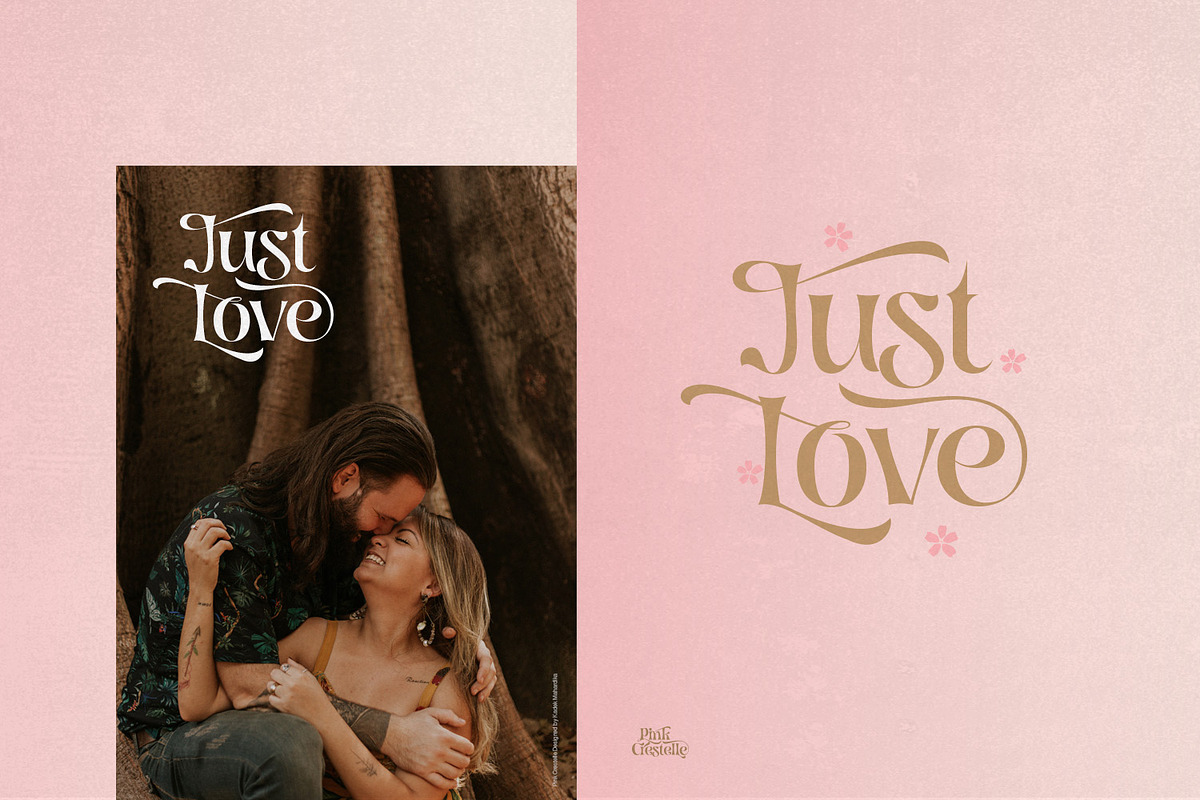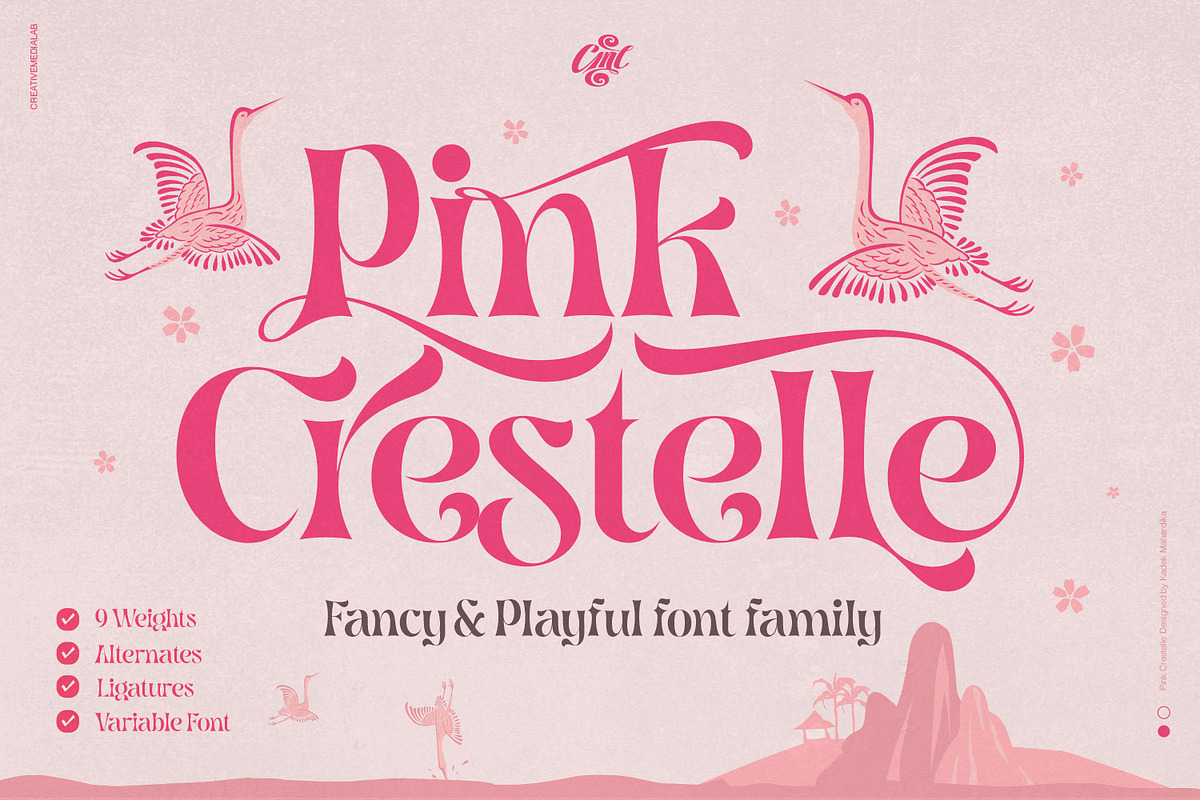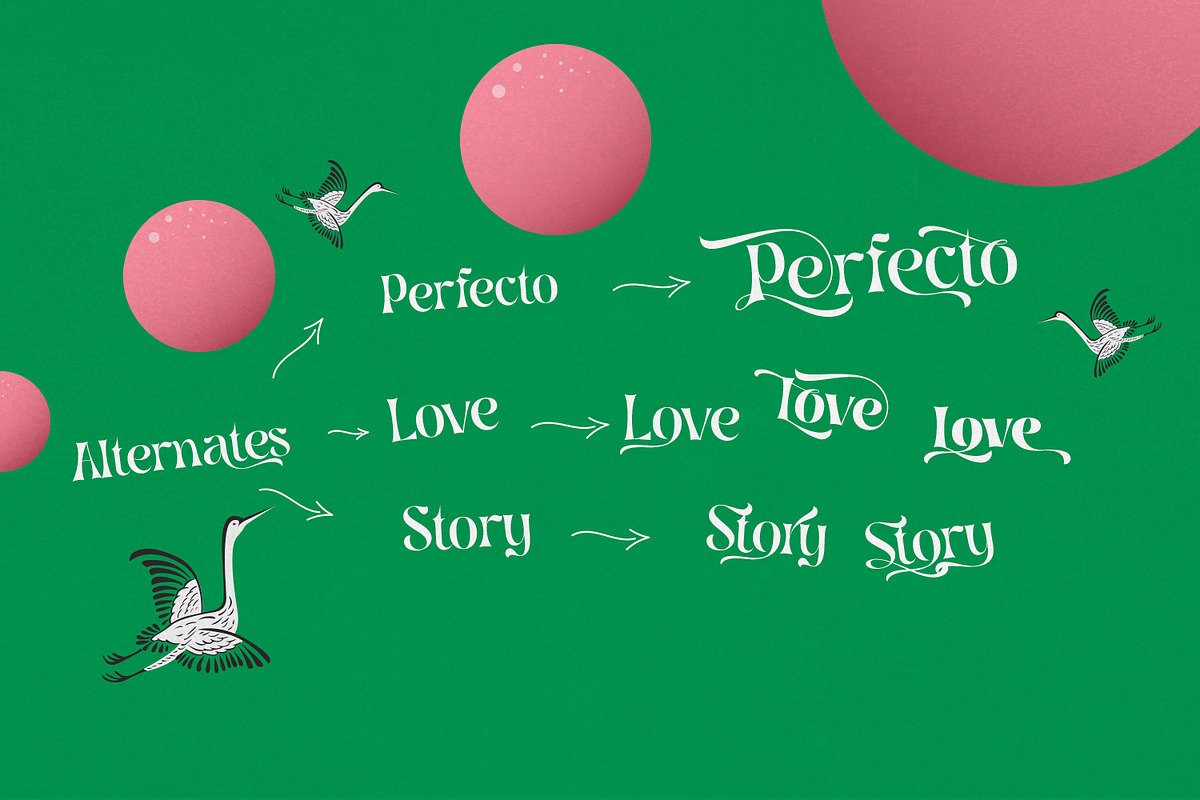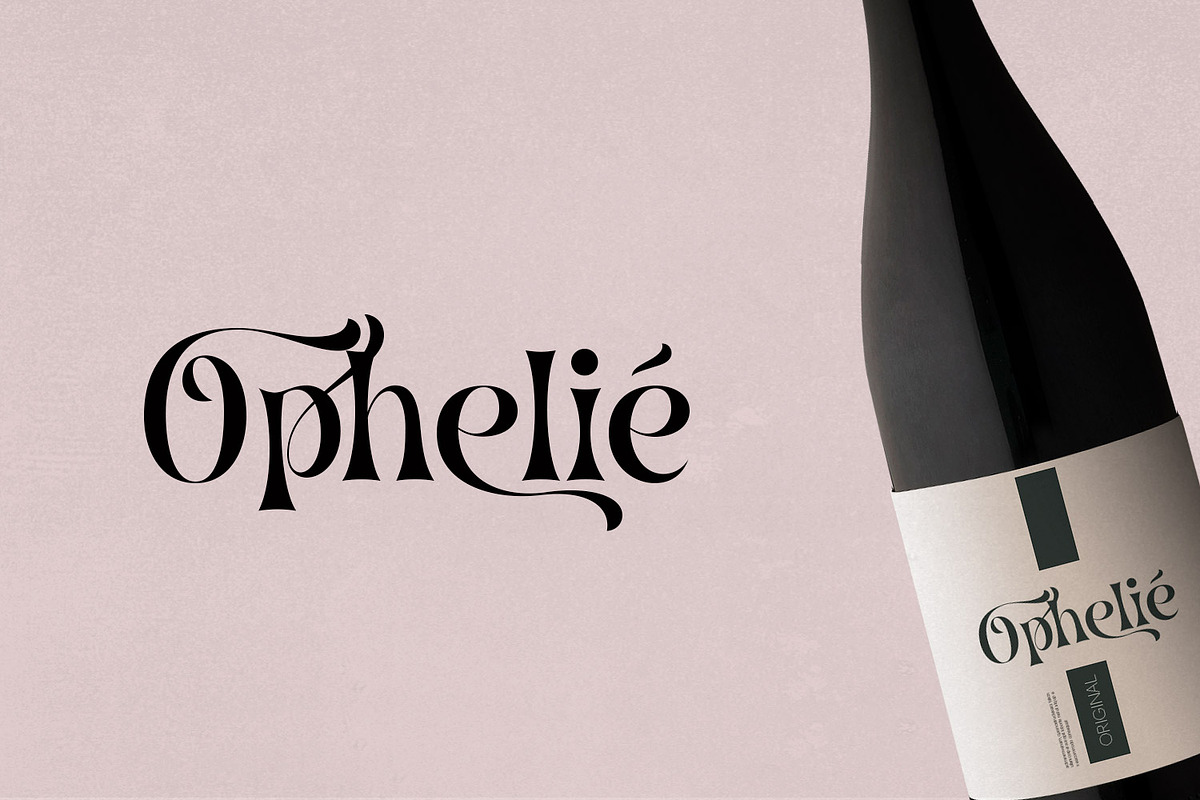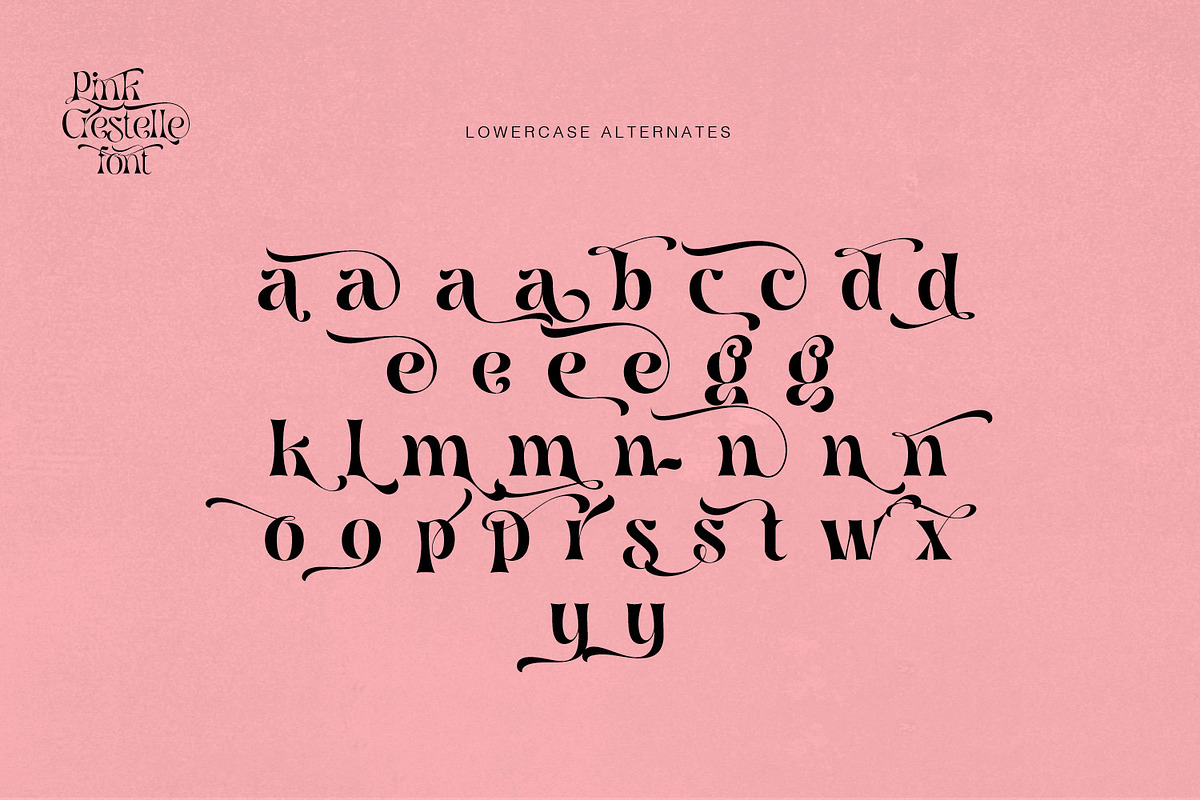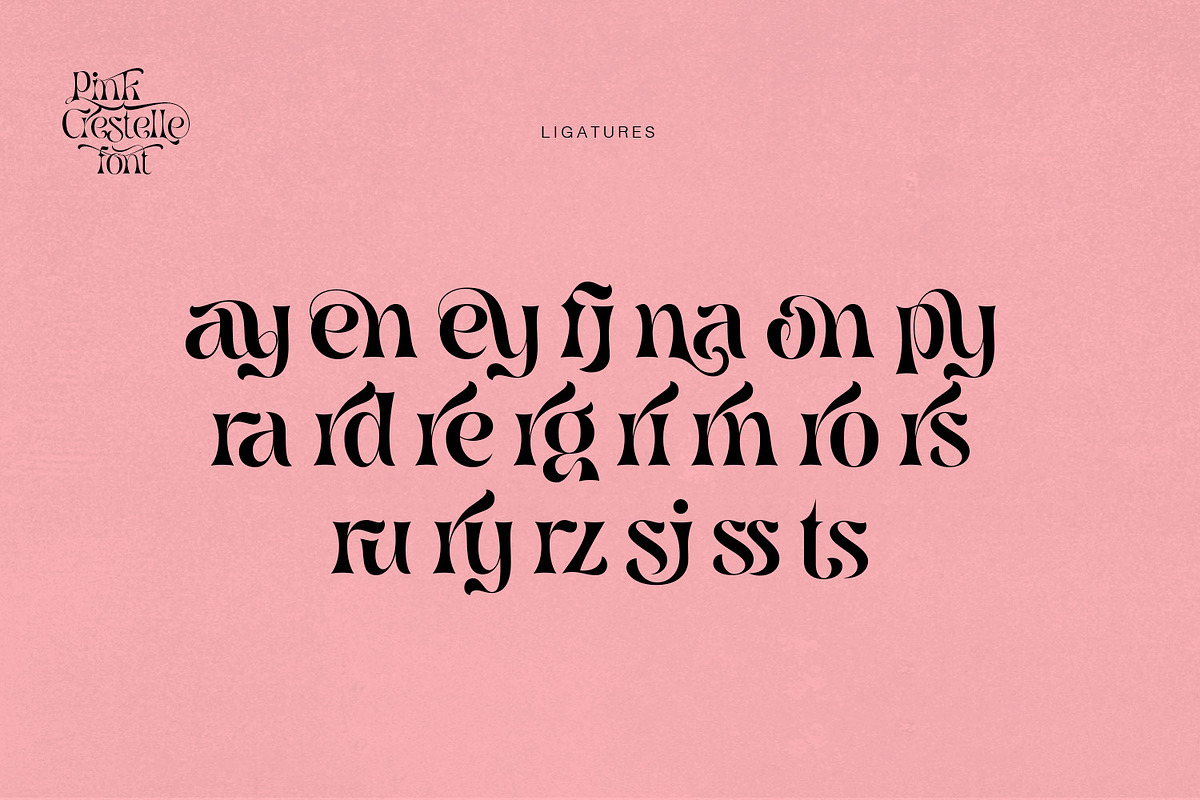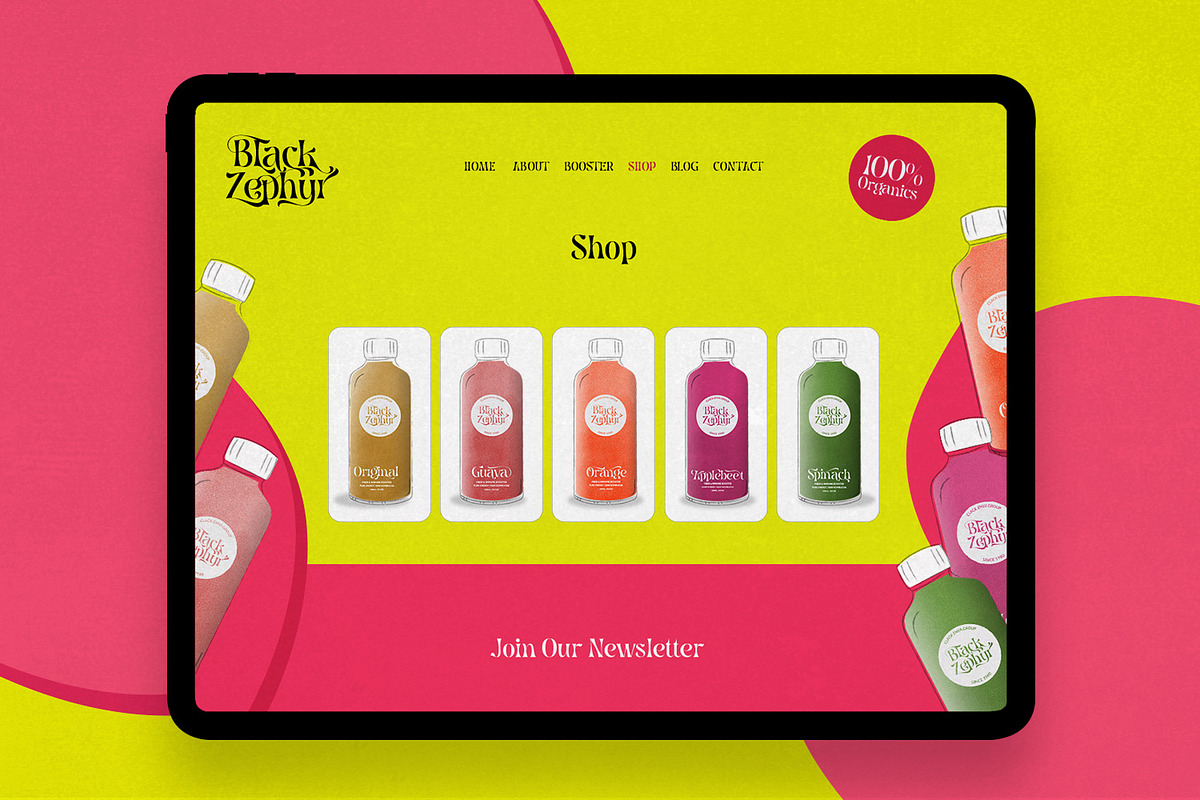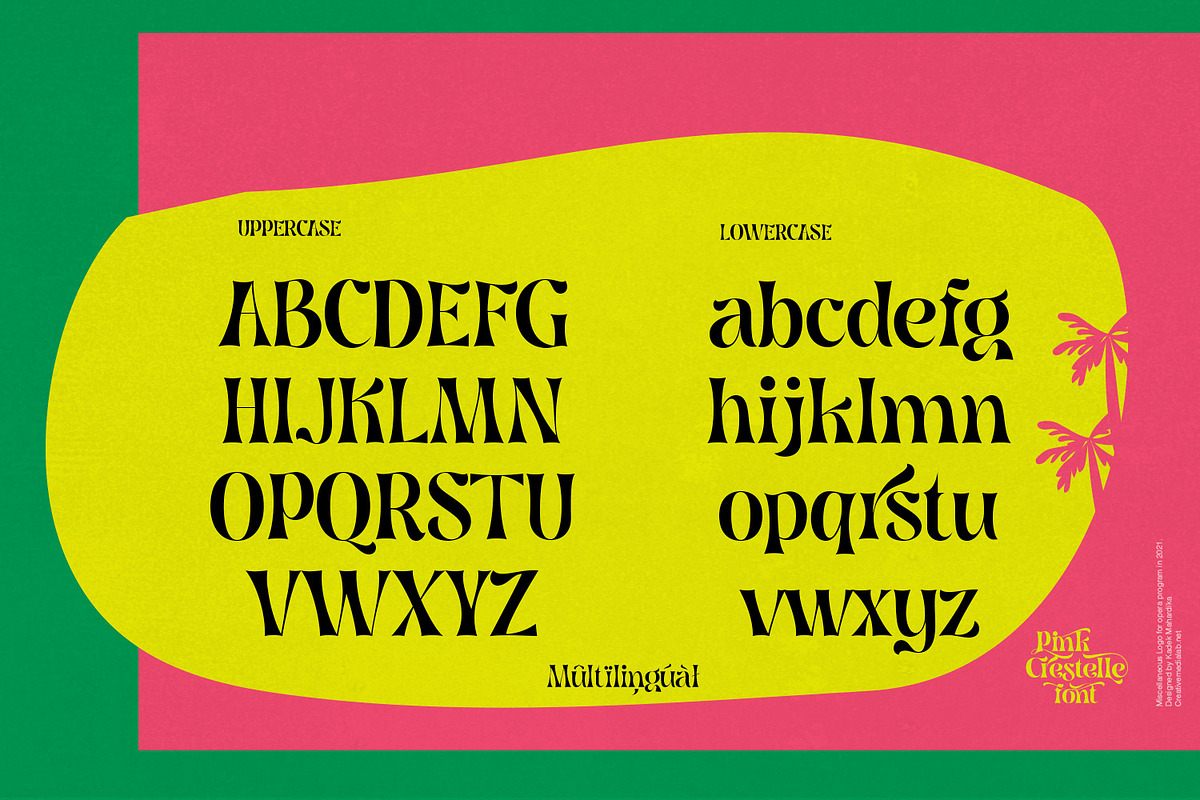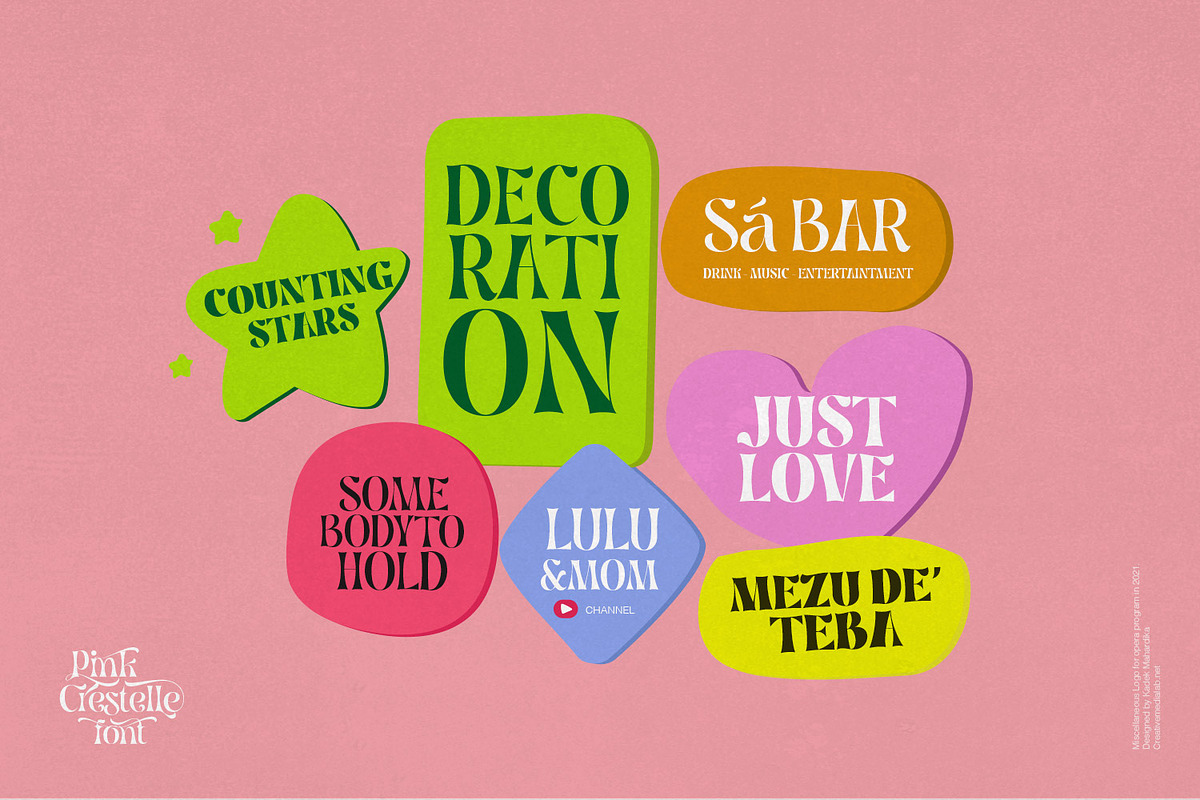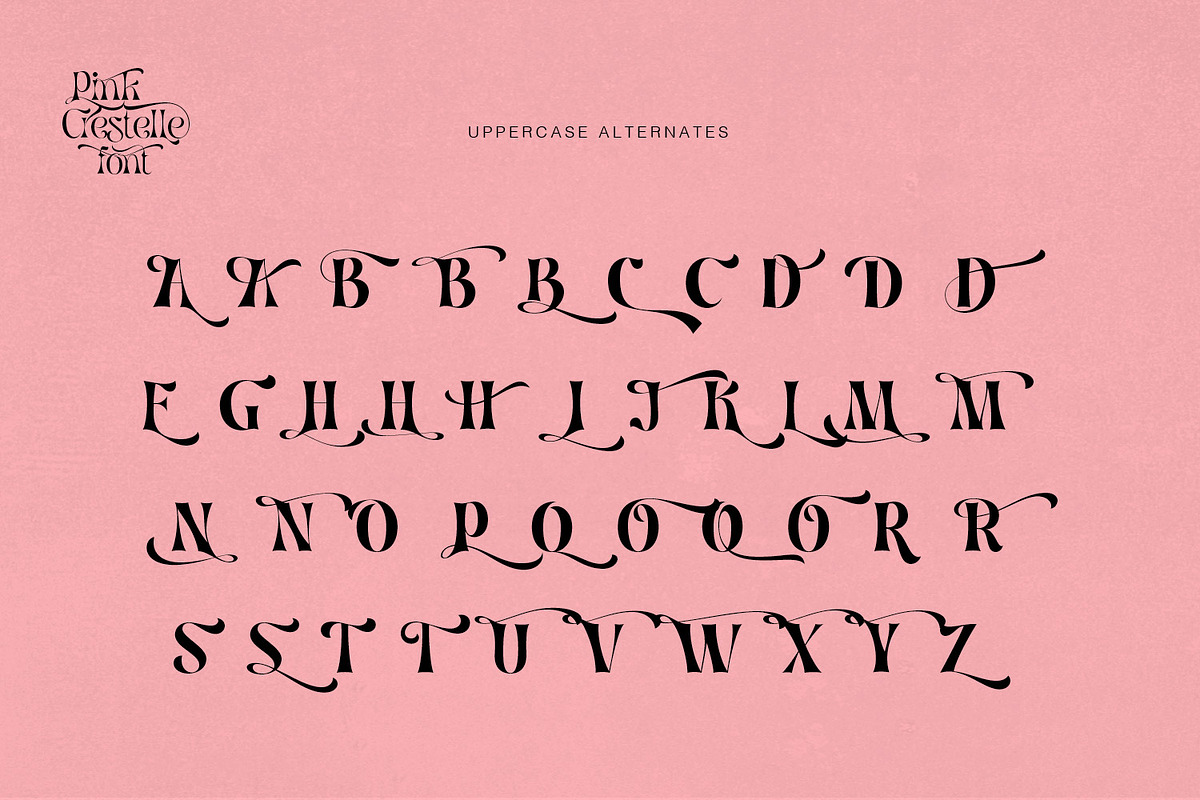
Been working on a tropical or fancy themed project? You will love this family.
Introducing Pink Crestelle a fancy, versatile and playful font family.
This family contains 9 weights and has tons of alternates and ligatures. Best for branding, webdesign project, Clothing brand, logo design, valentine's greetings, packaging and much more.
Comes with variable format as well as multilingual support, numbers, and currency symbols.
Supported Languages
Western Europe, Central/Eastern Europe, Baltic, Turkish, Romanian